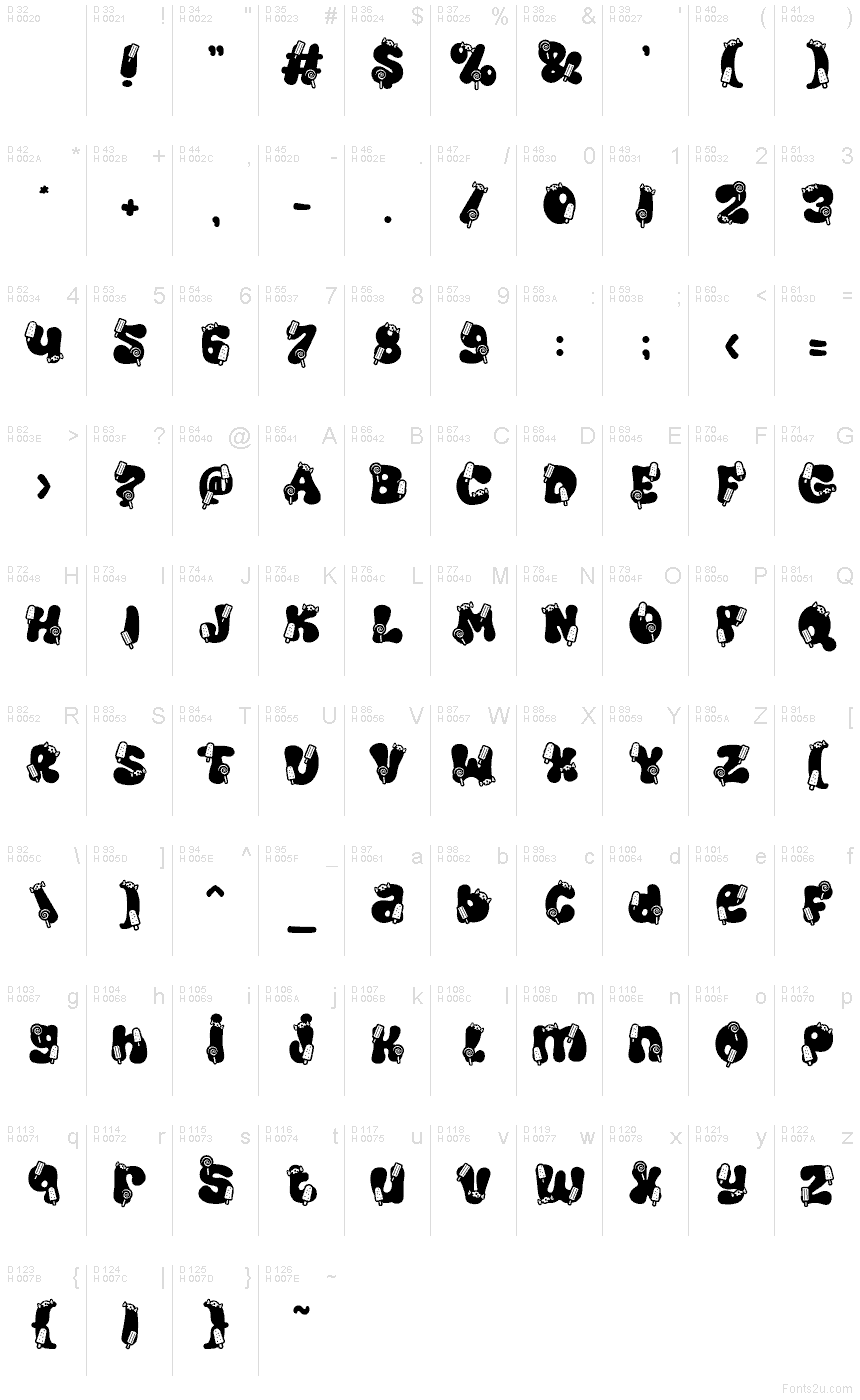
Cold Snowflake Eight
Cold Snowflake Eight font by PutraCetol Studio is a cartoon display font that brings joy to design projects. The style embodies a unique playful mood with whimsical characters and decorative elements that elevate its overall look. As the focus is on informality, each character has casual yet distinct touches that make them stand out individually or in combination.